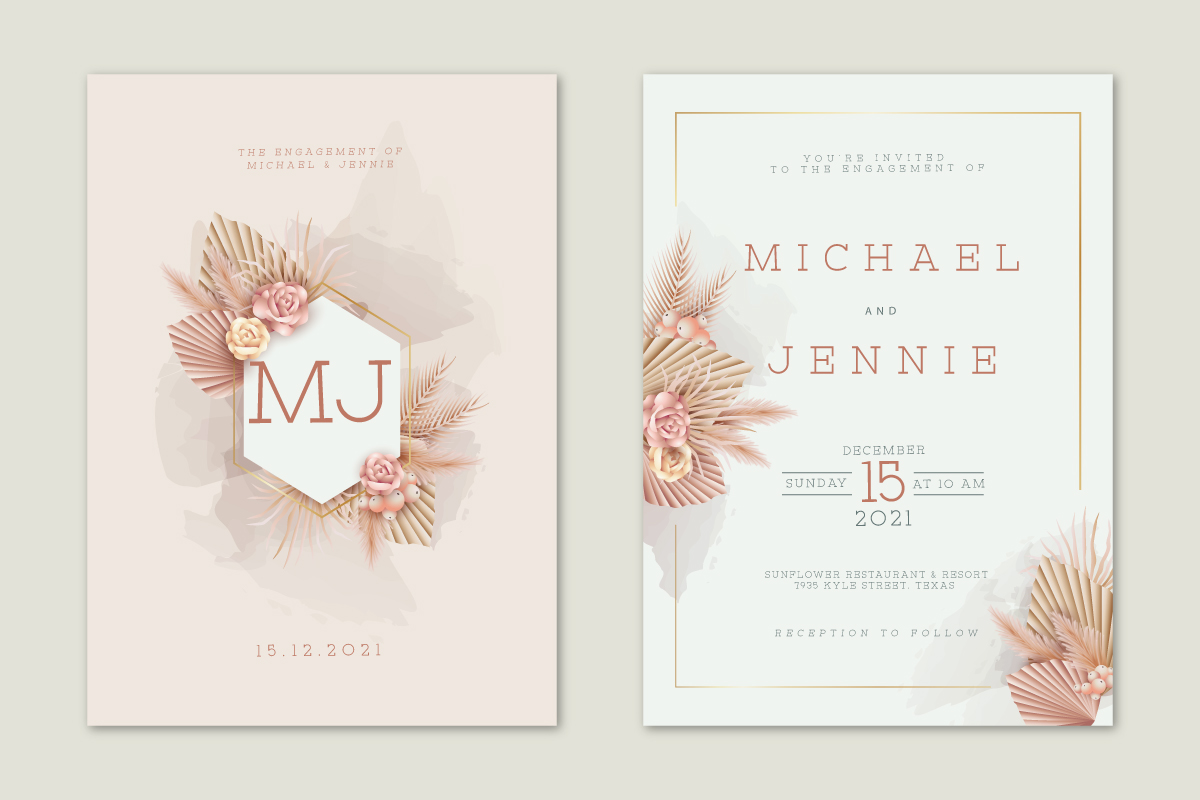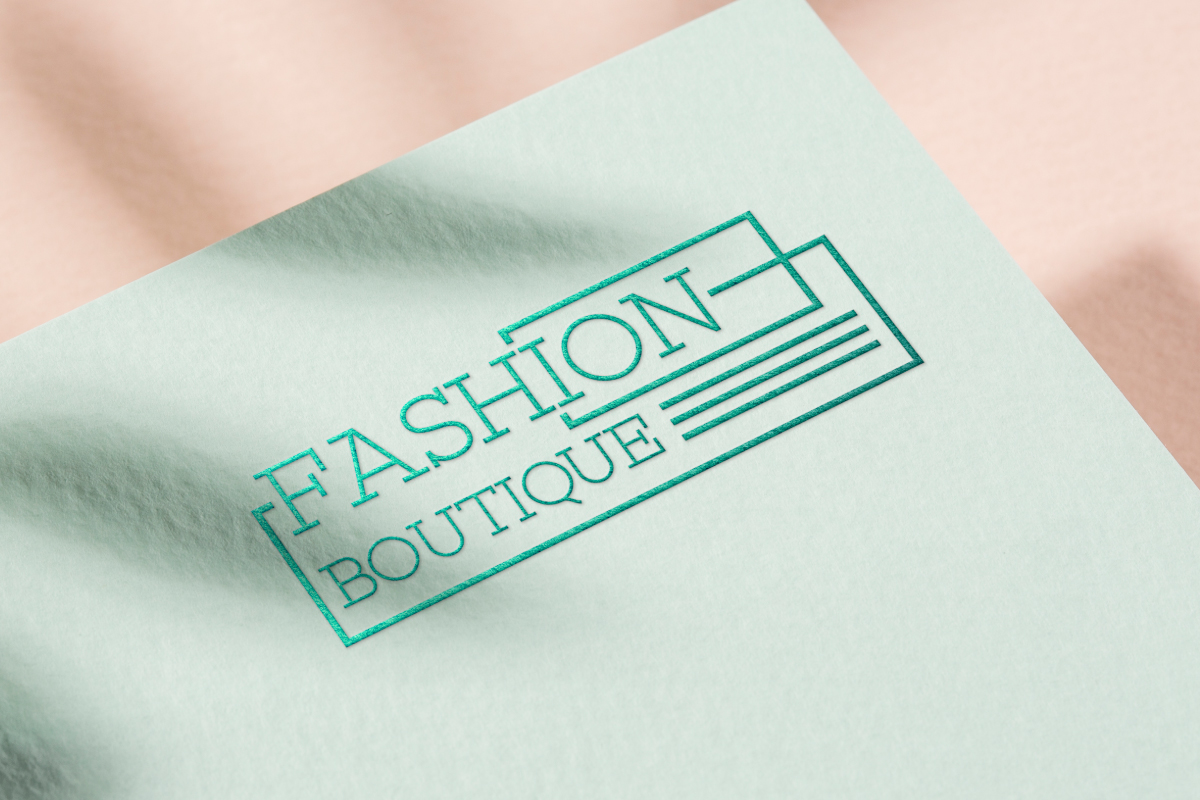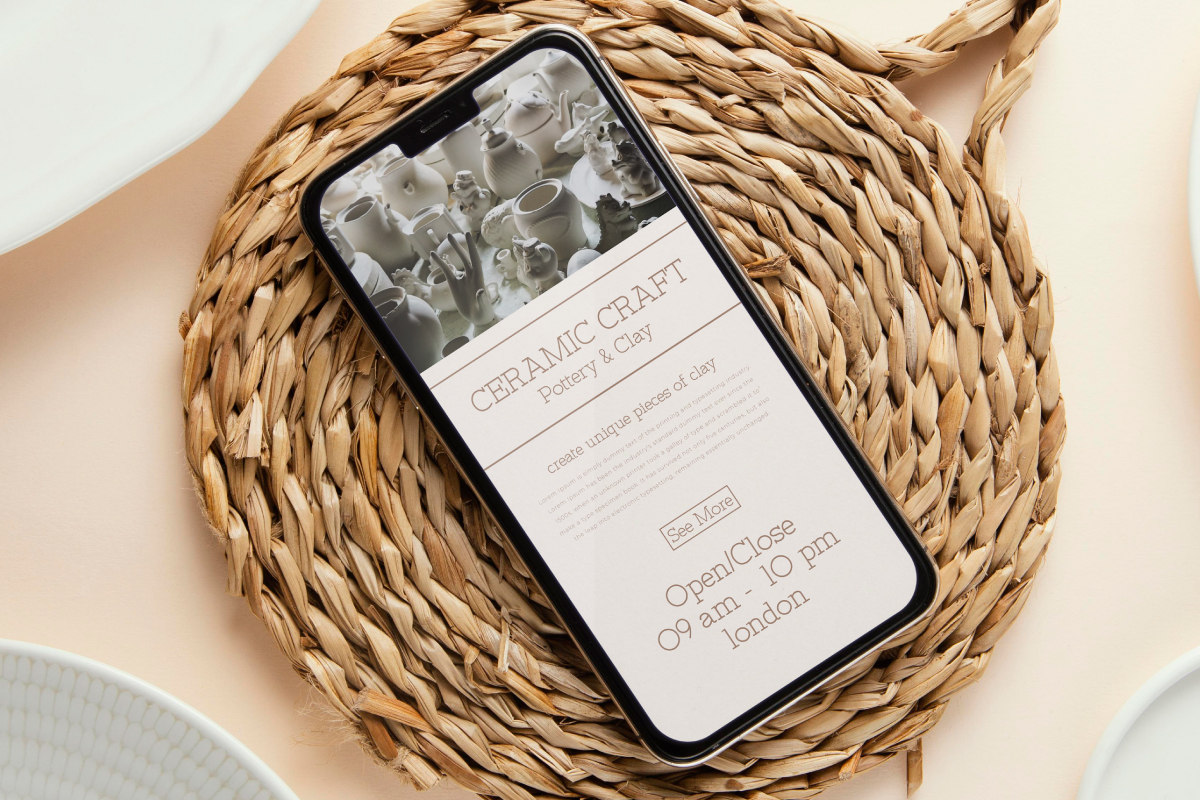
Clangorous Font
Clangorous Serif Font is a casual serif font that comes in with two styles: Regular and Italic exclusively created by CalligraphyFonts. This font is suitable for any industry such as : architect, boutique, cosmetic, fashion, homeware, publishing, spa and salon, wedding organizer, writer, and anything that needs a stylish serif look.